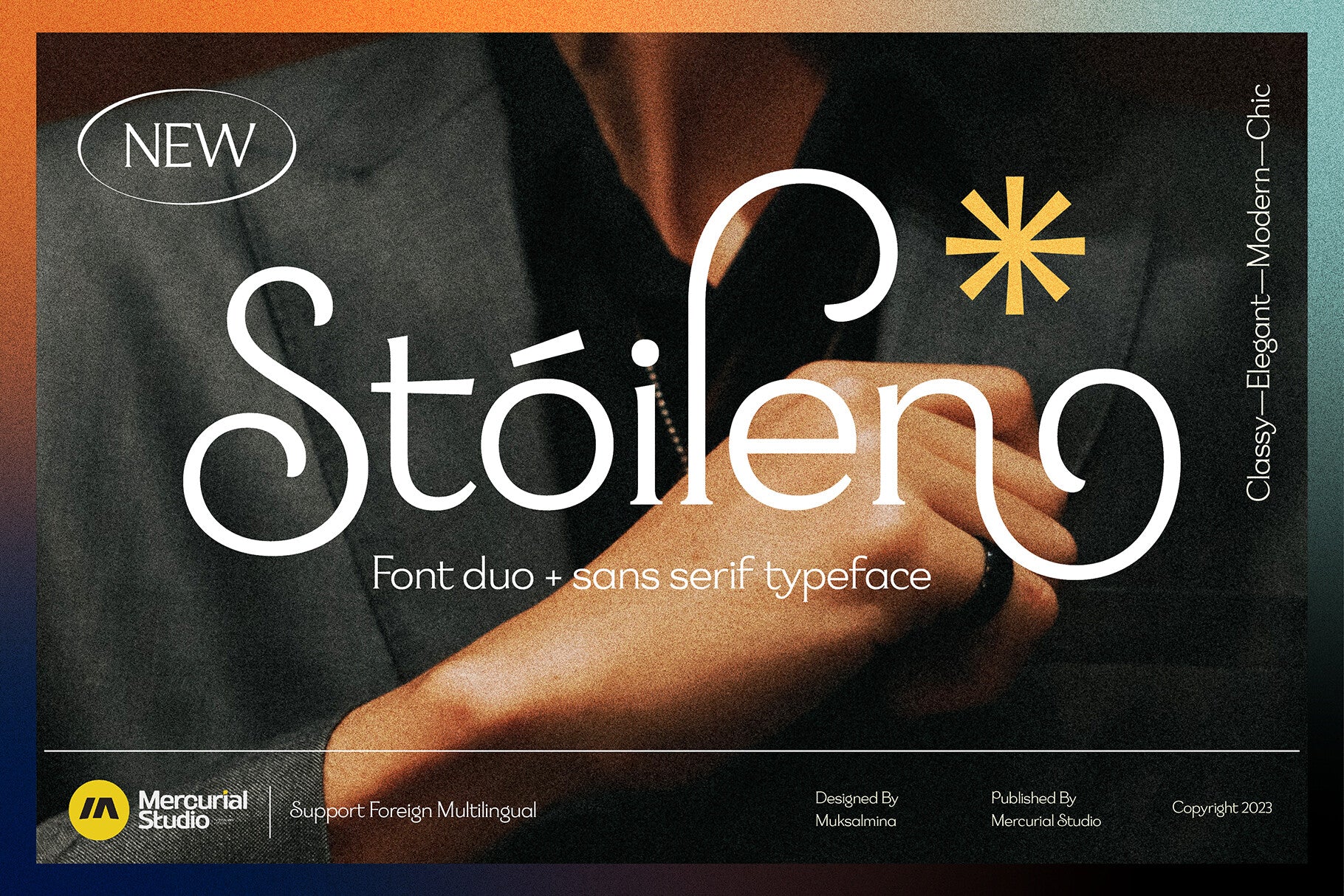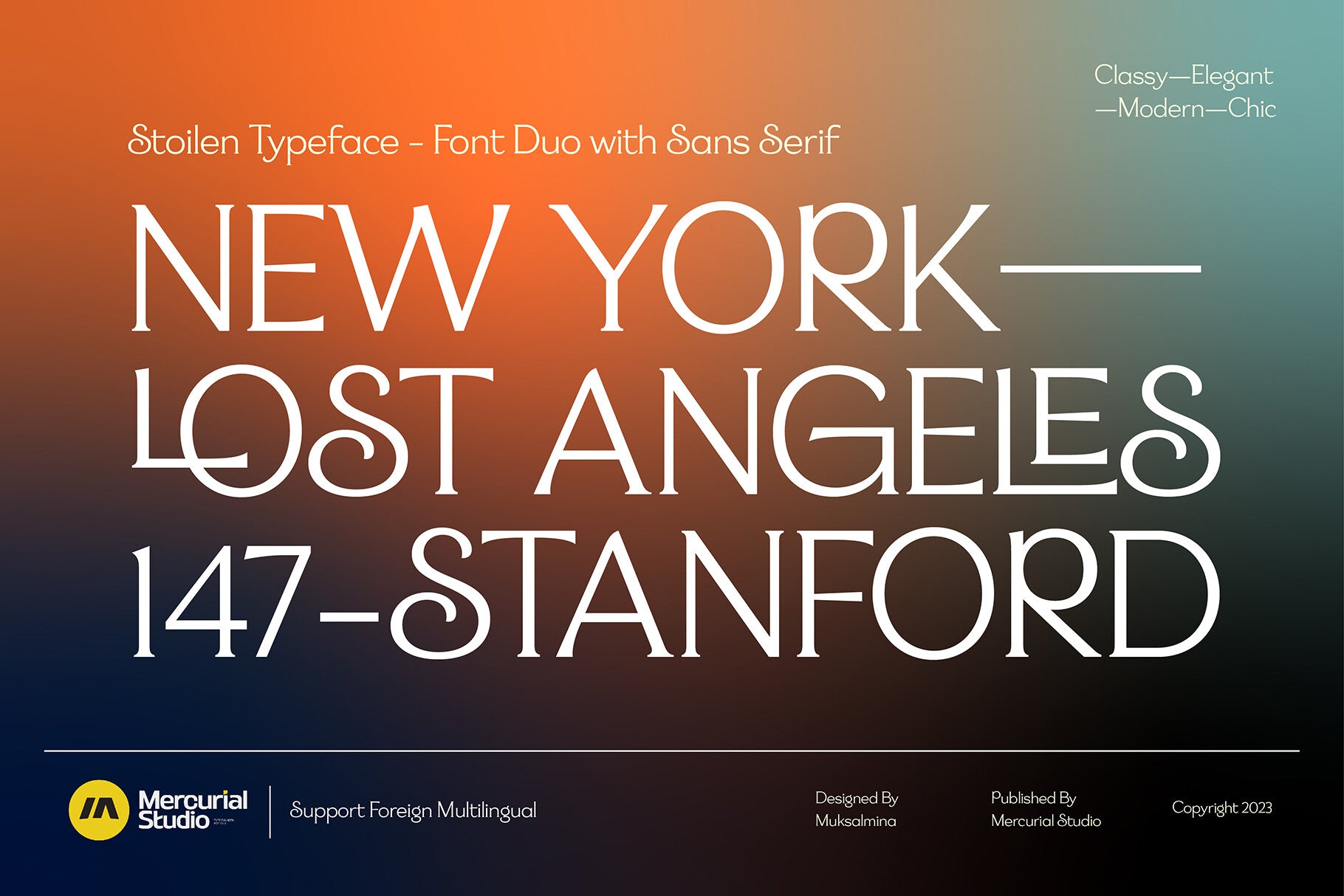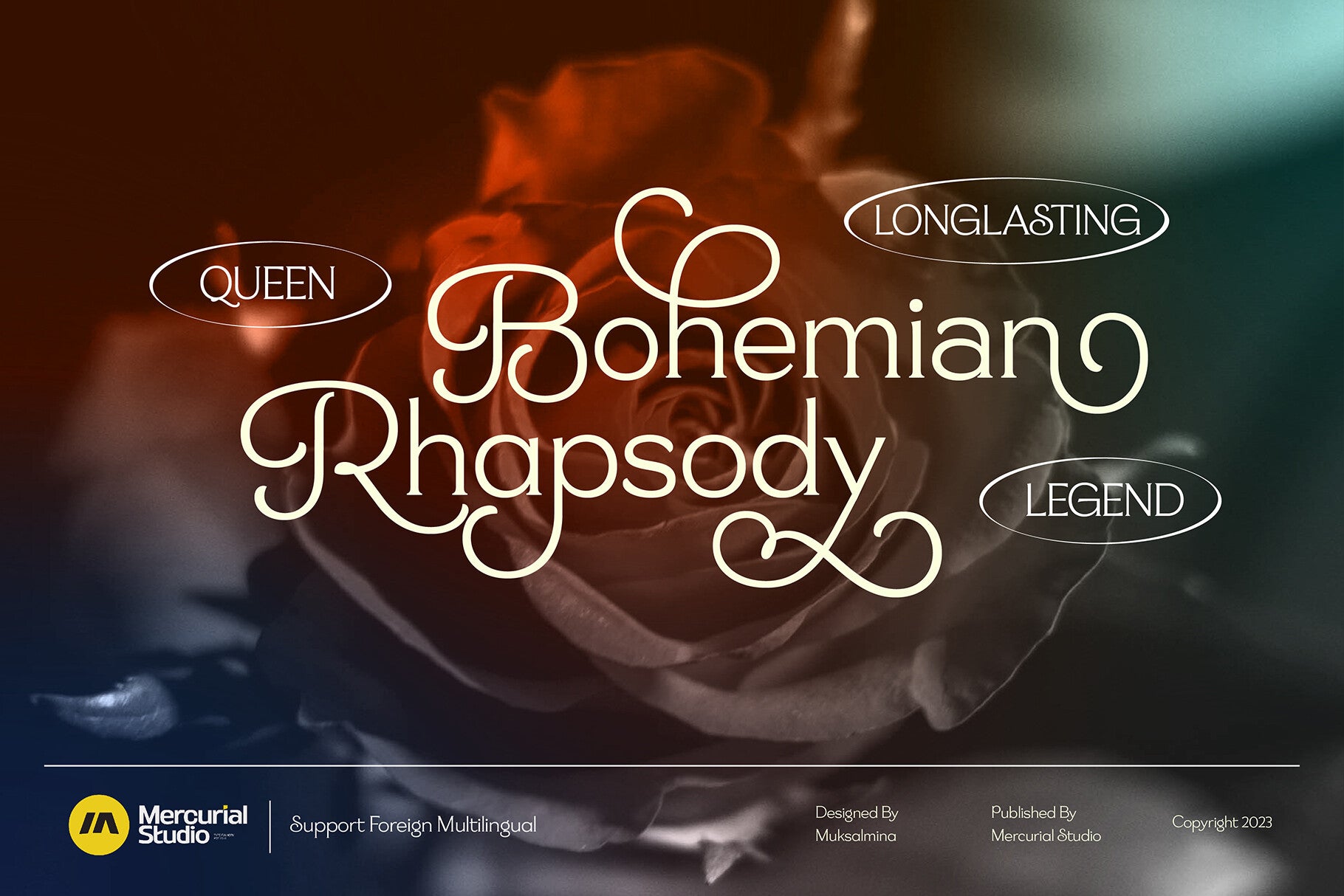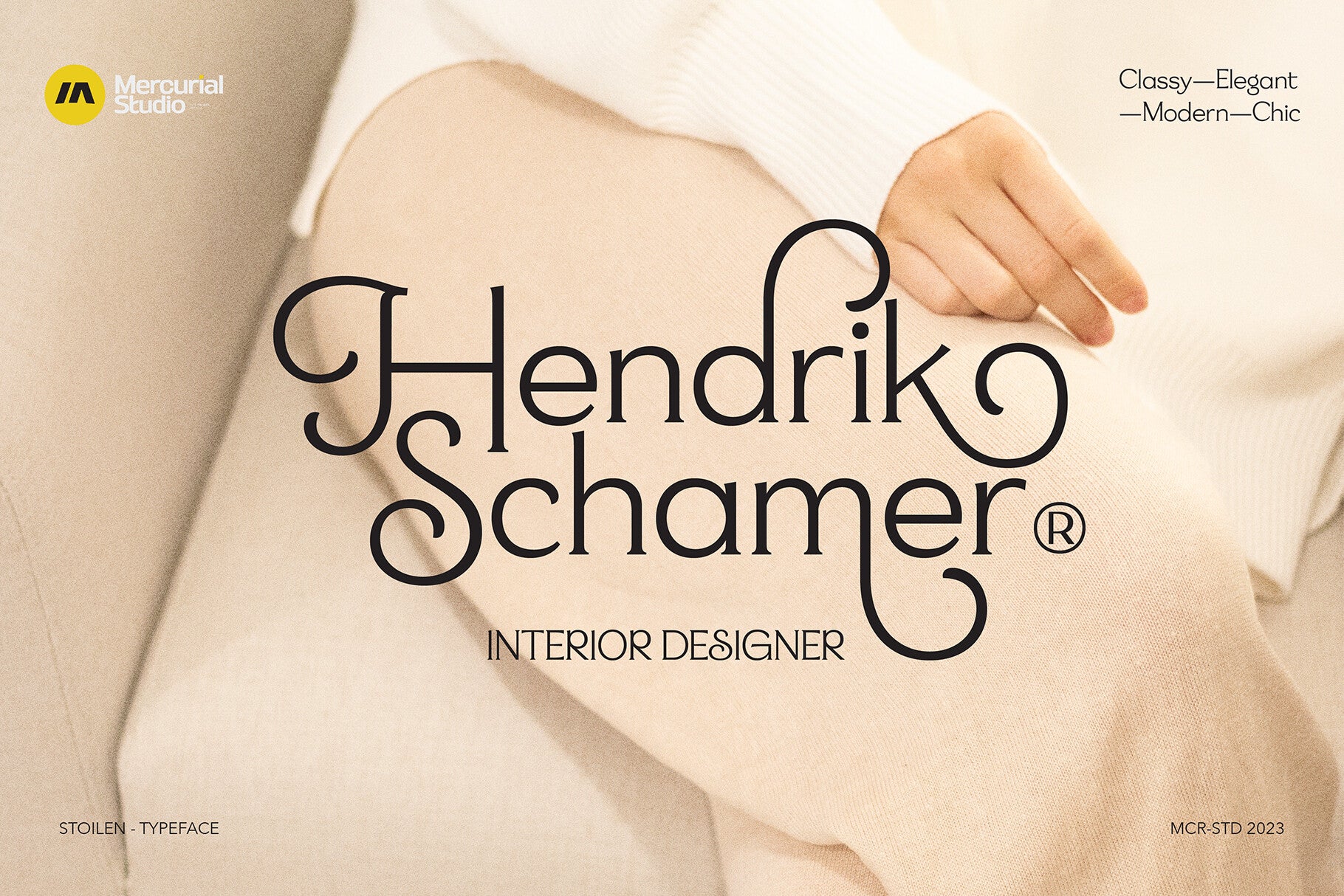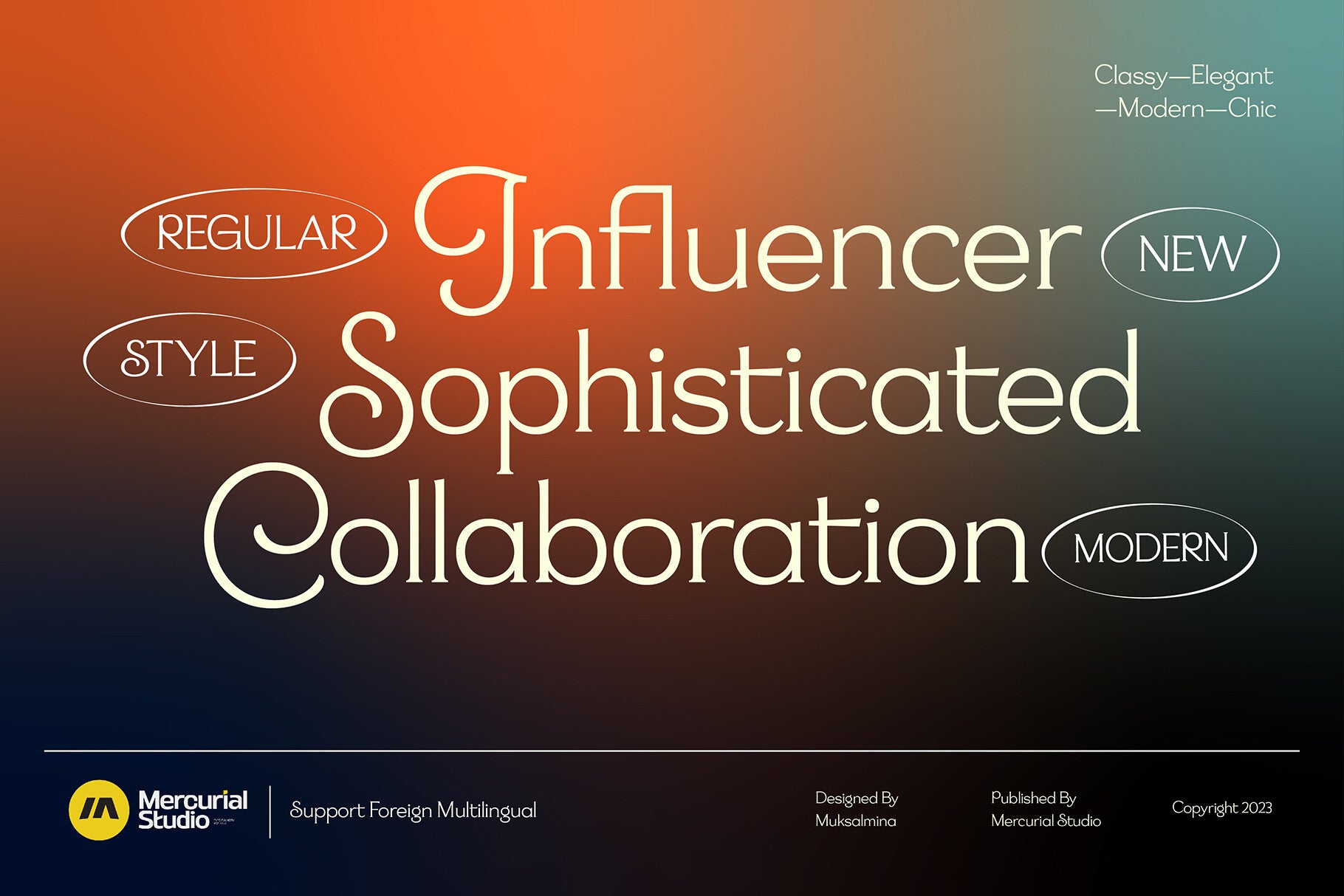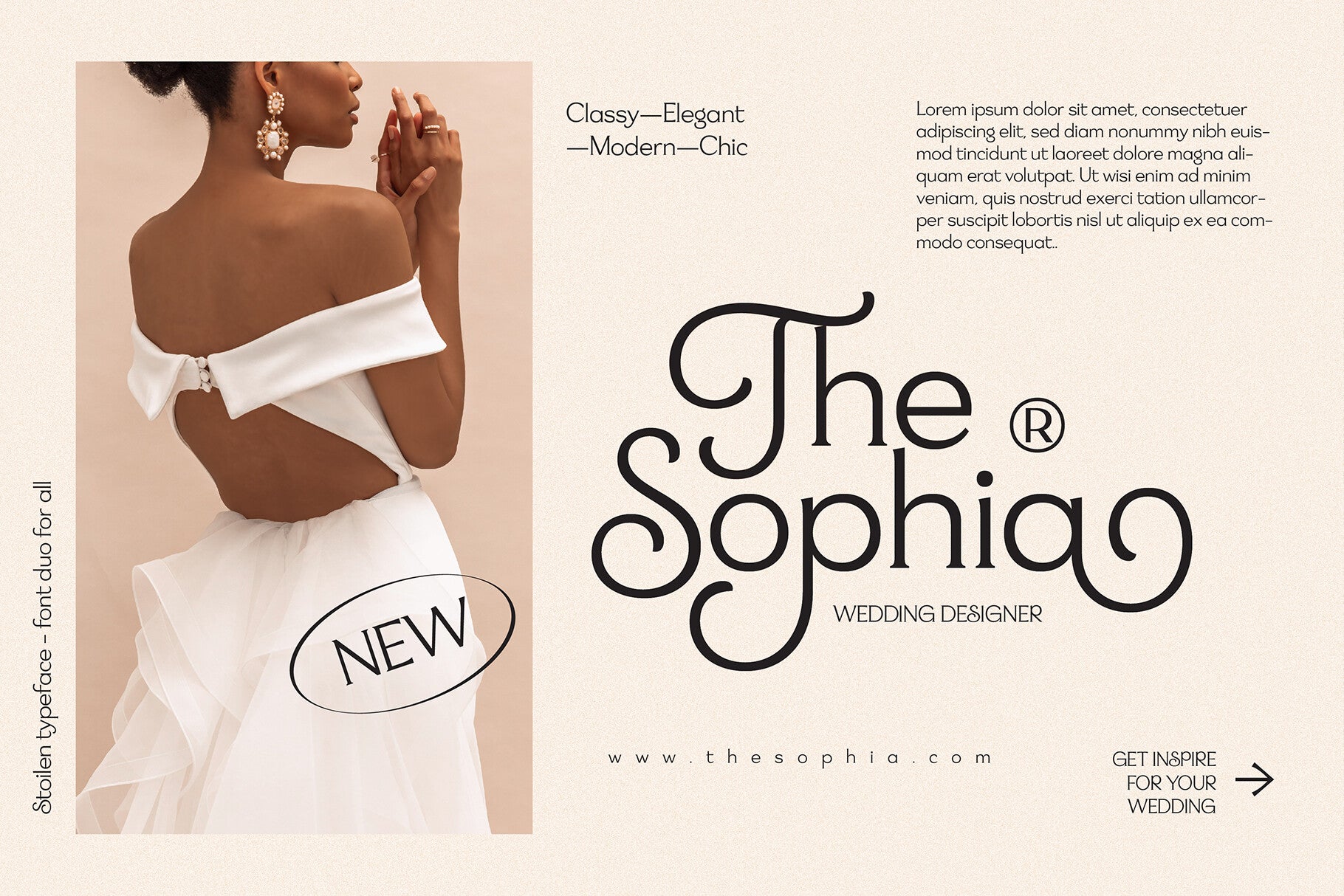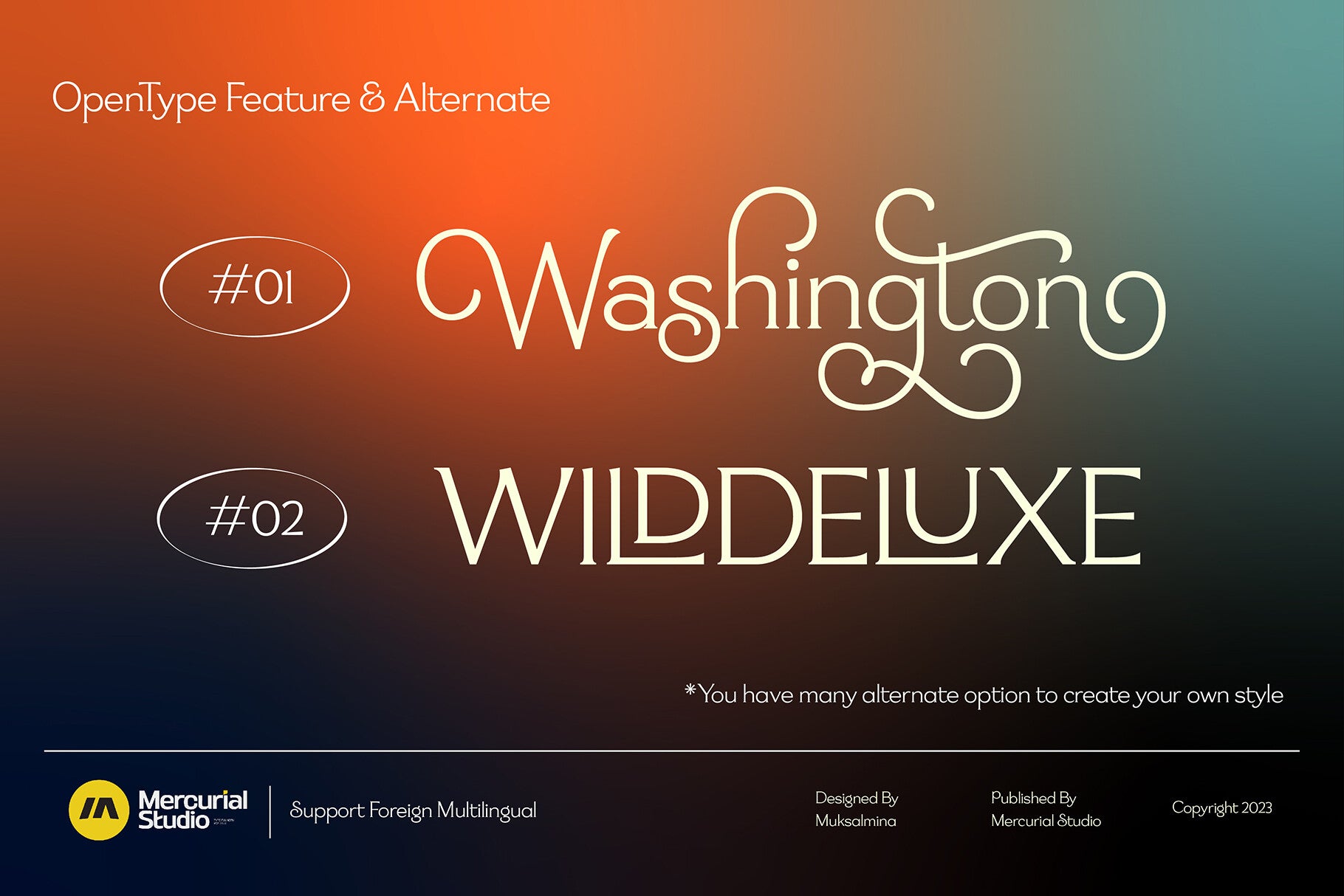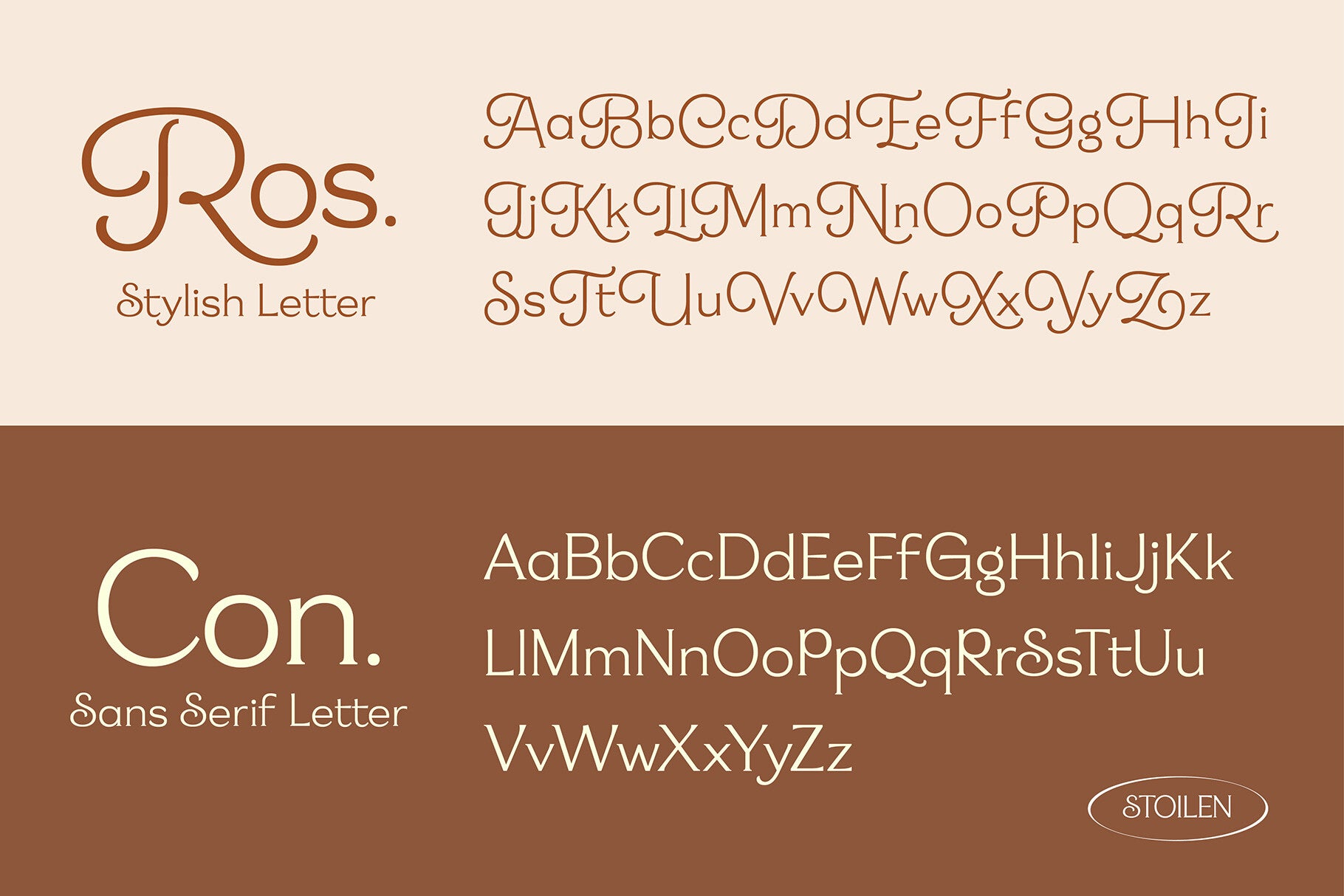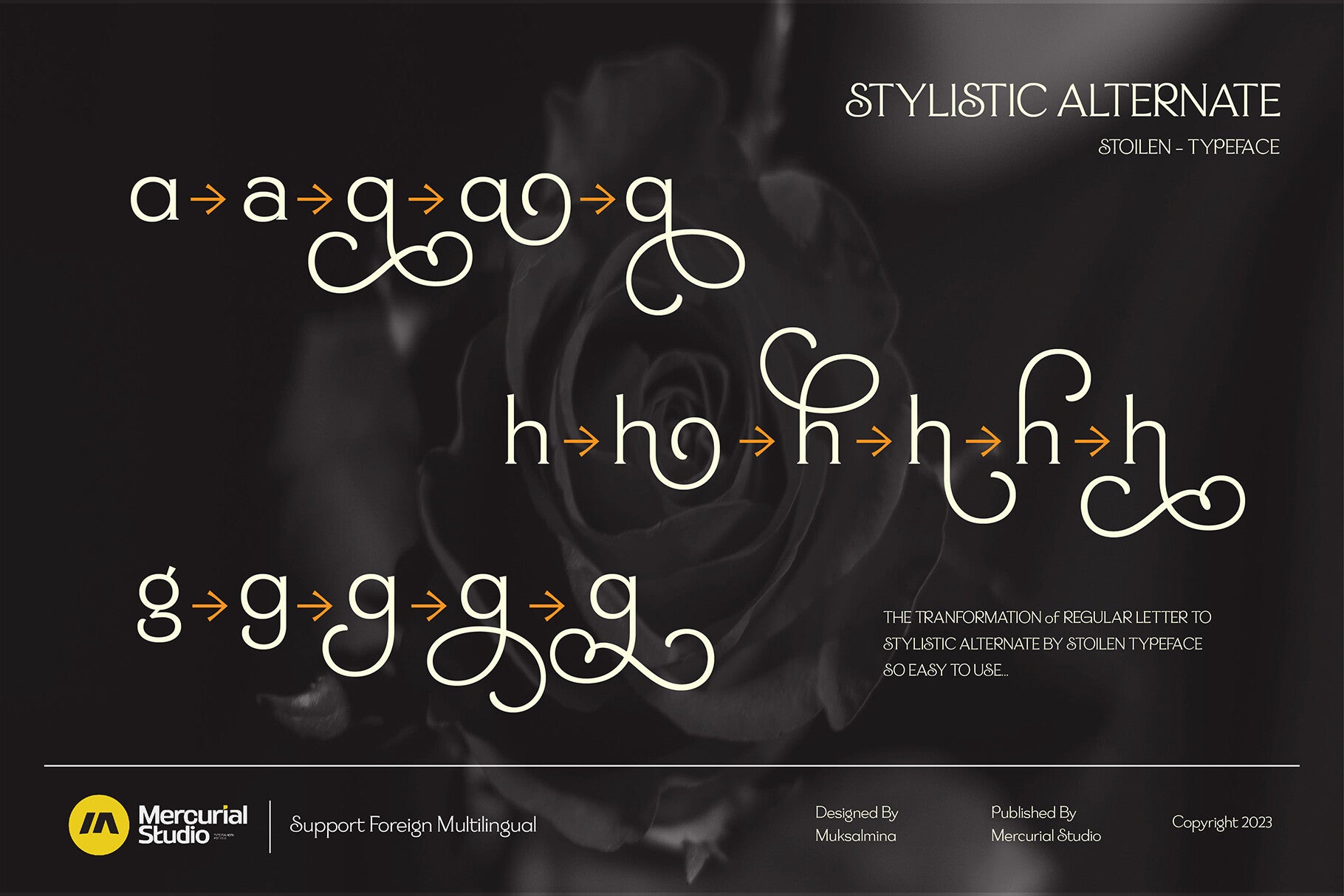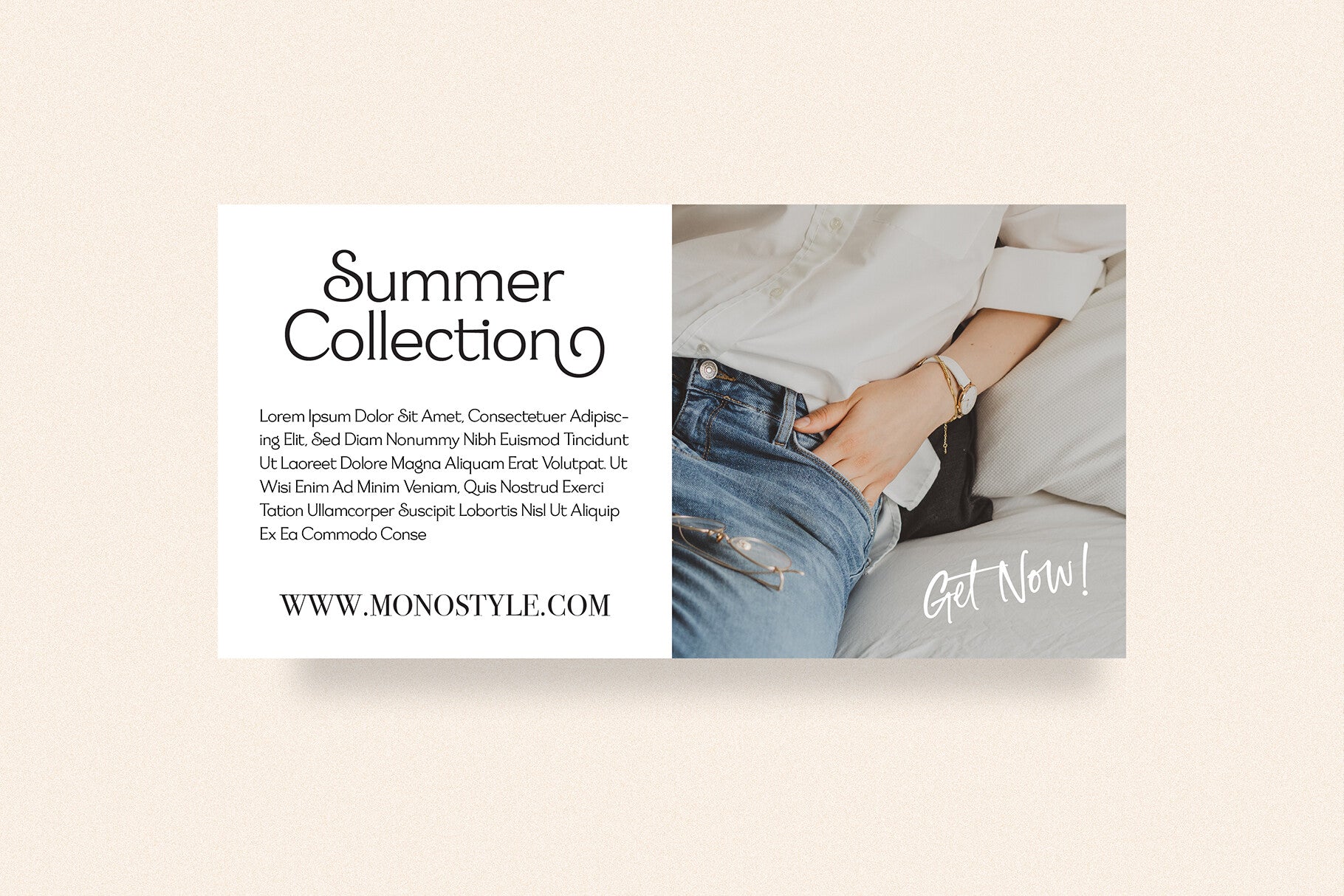
Stoilen Font
Stoilen is a refined font duo that brings together a sophisticated serif and a sleek sans-serif typeface, perfectly balancing elegance and modernity. This versatile pairing is ideal for luxury branding, high-end editorial layouts, minimalist web design, logos, and premium packaging.
With its clean contrast and polished aesthetic, Stoilen allows for seamless hierarchy and dynamic design combinations. Its multilingual support and timeless character make it a must-have for creatives looking to make a bold yet elegant statement across a wide range of visual projects.